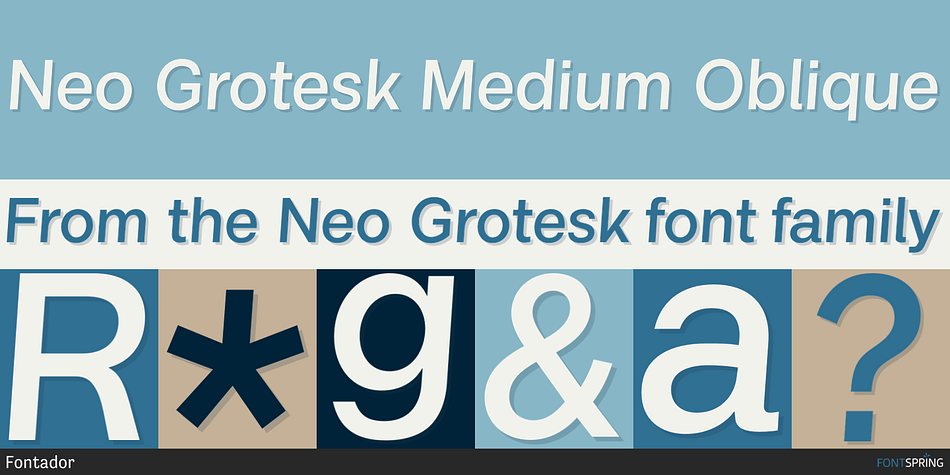
Neo Grotesk Medium Oblique
Designed by Arne Freytag, Neo Grotesk is a display sans and sans serif font family. This typeface has nineteen styles and was published by Fontador.
Visions of a futuristic type
Neo Grotesk is an attempt to create a dual typeface system in different weights. The basis is a modern, factual sans serif in the style of a New Grotesque, while the second typeface variant builds on the basic form of the first and varies the shapes with curves, similar to a “blur effect”. The combination of these two basic types opens up endless design possibilities in a futuristic style to meet the different requirements of design projects.
Neo Grotesk is available in two versions: either as a classic dual font family with 18 different weights or as a variable font.
As a tool for visionary creatives in areas such as branding, editorial and fashion design, Neo Grotesk may provide a platform to push conventional boundaries and develop innovative, forward-thinking design solutions.
Style Medium Oblique
Foundry Fontador
Designer Arne Freytag